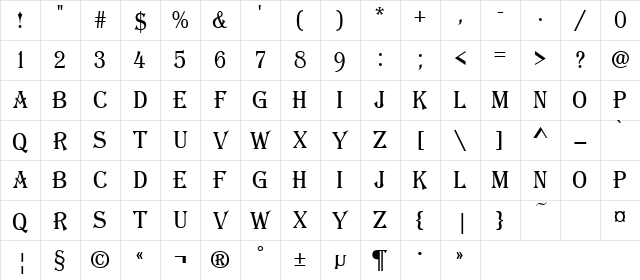
a_AlgeriusNr Regular Free Font
a_AlgeriusNr Regular
Design Context for a_AlgeriusNr
a_AlgeriusNr is a composed and adaptable typeface that performs quietly and consistently across a wide range of design contexts.
Pro Tip: Use a_AlgeriusNr in both headline and body roles to test its range before committing to a single application.